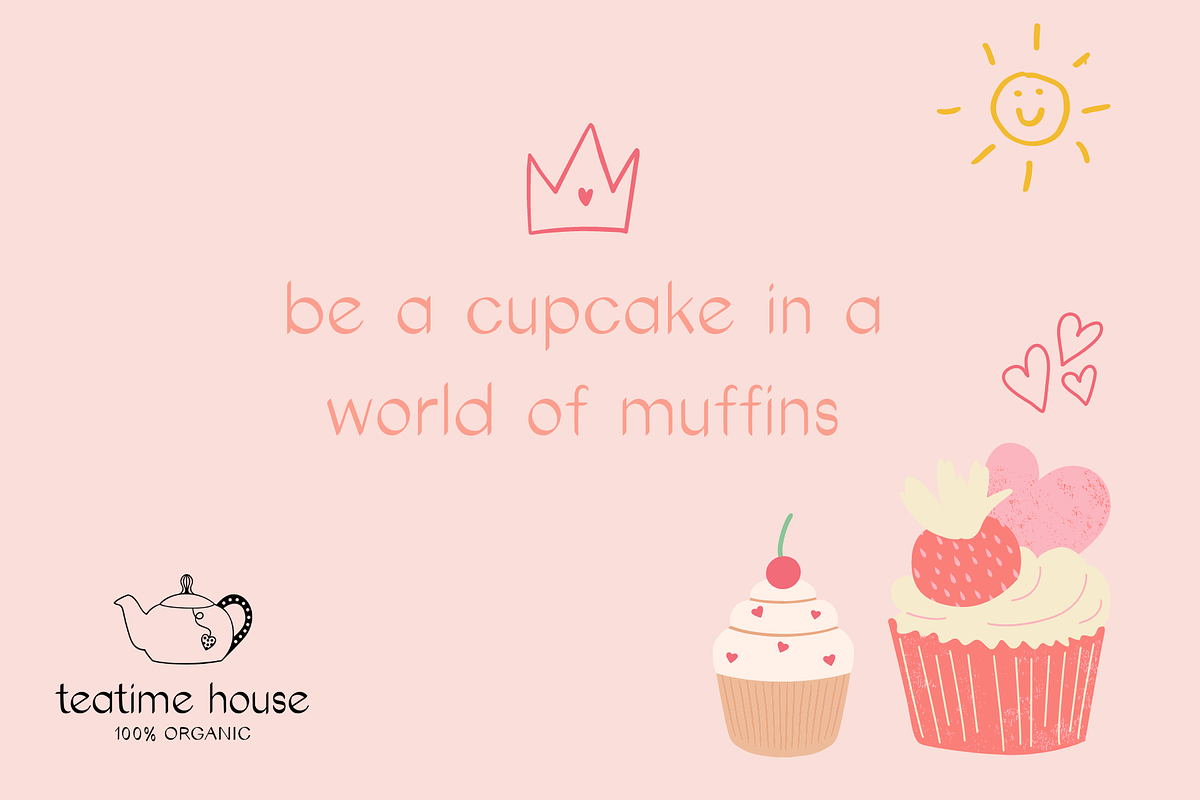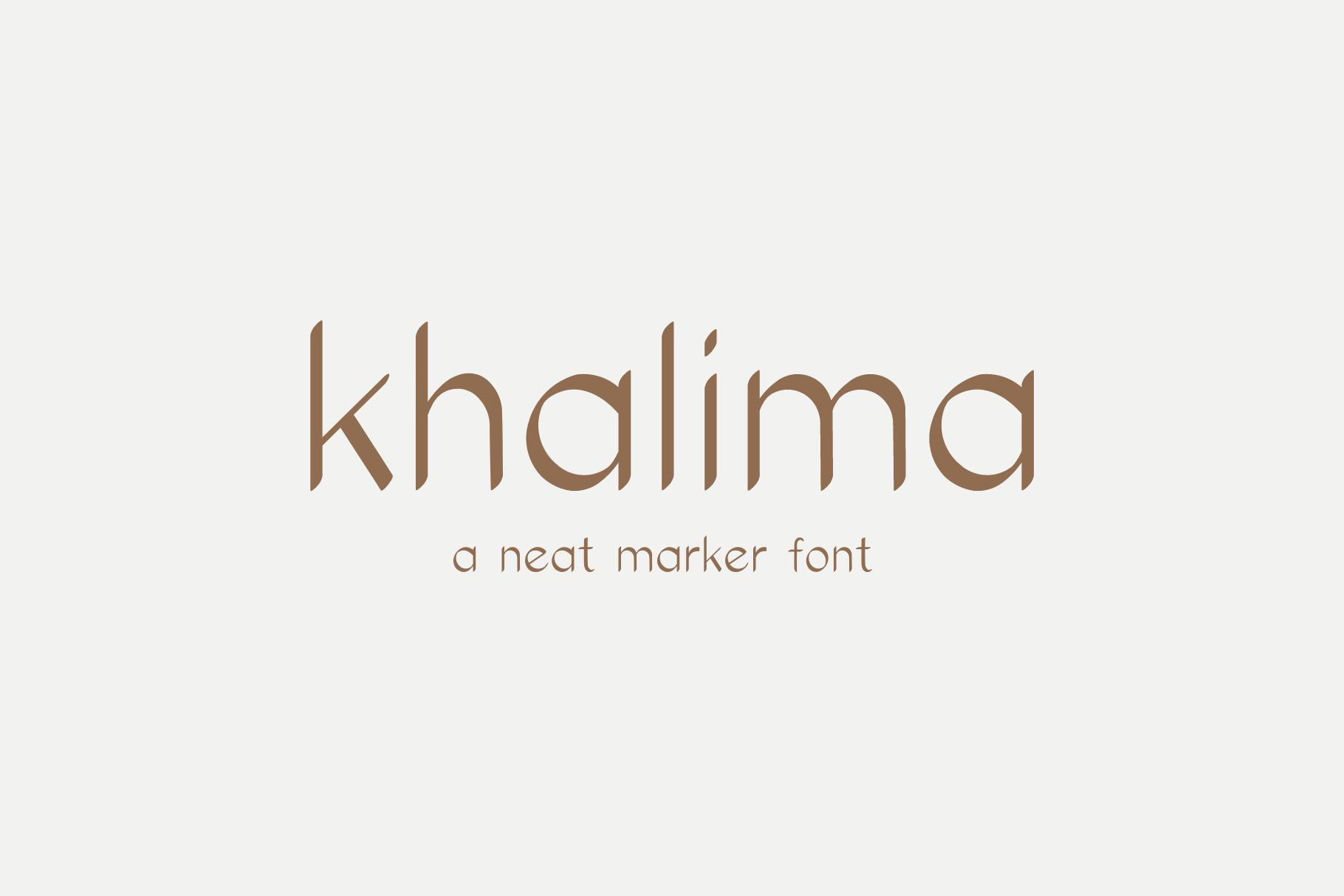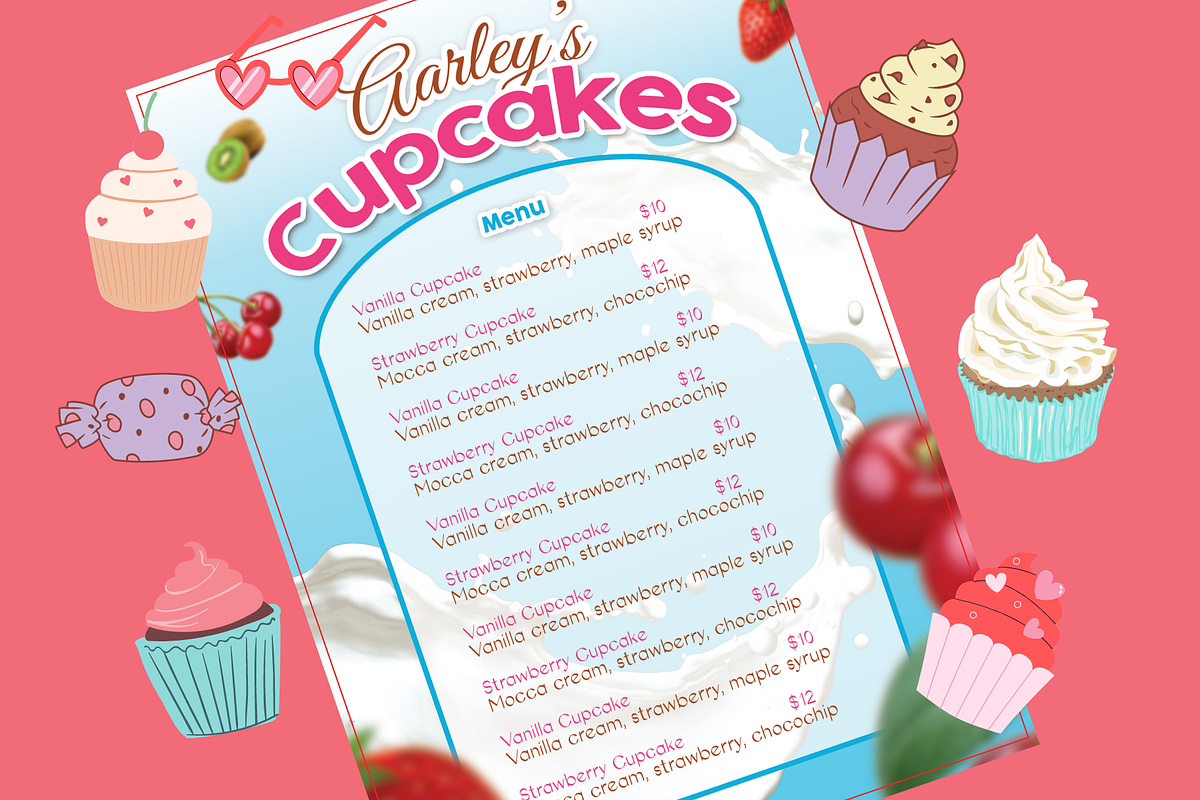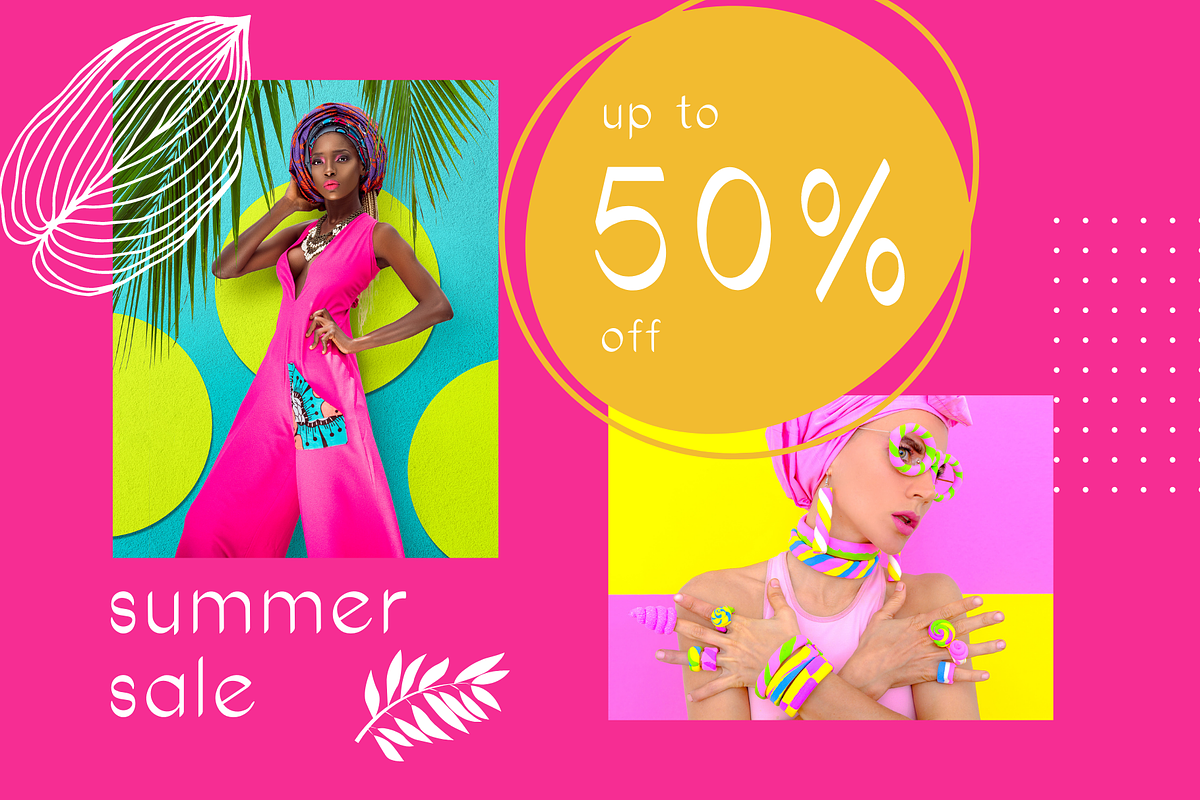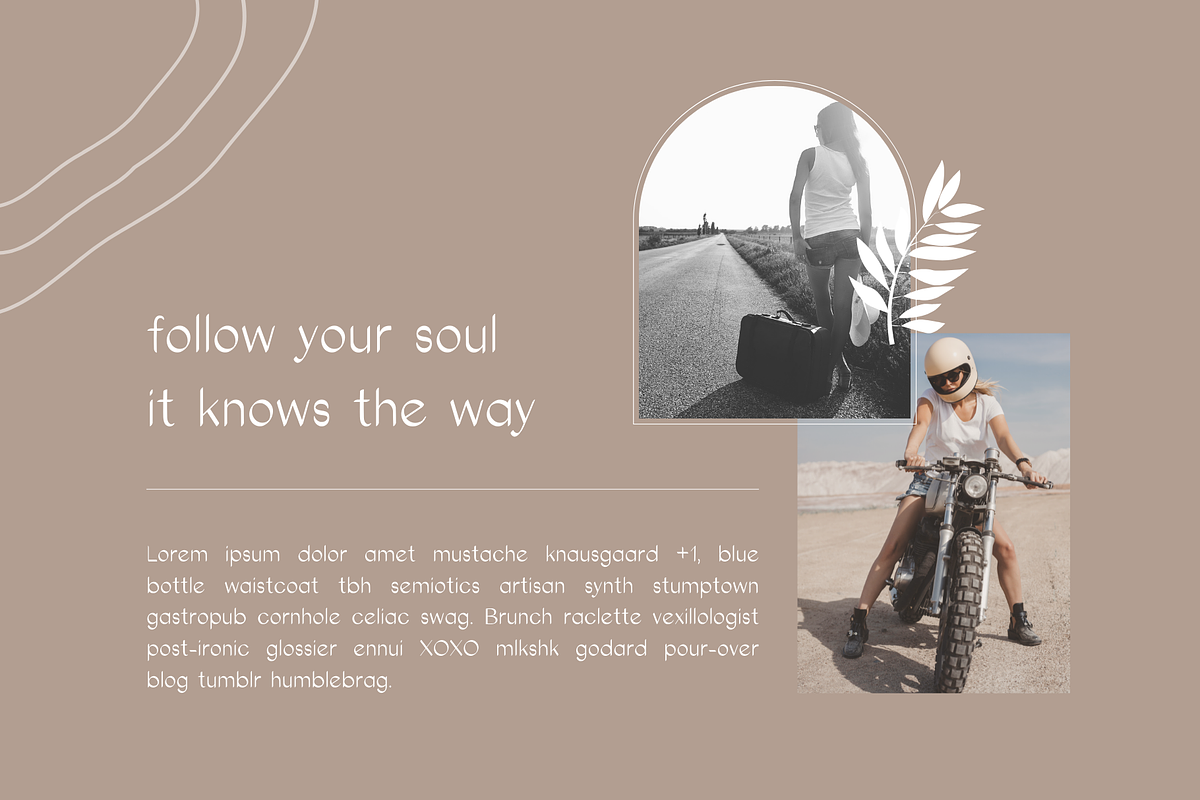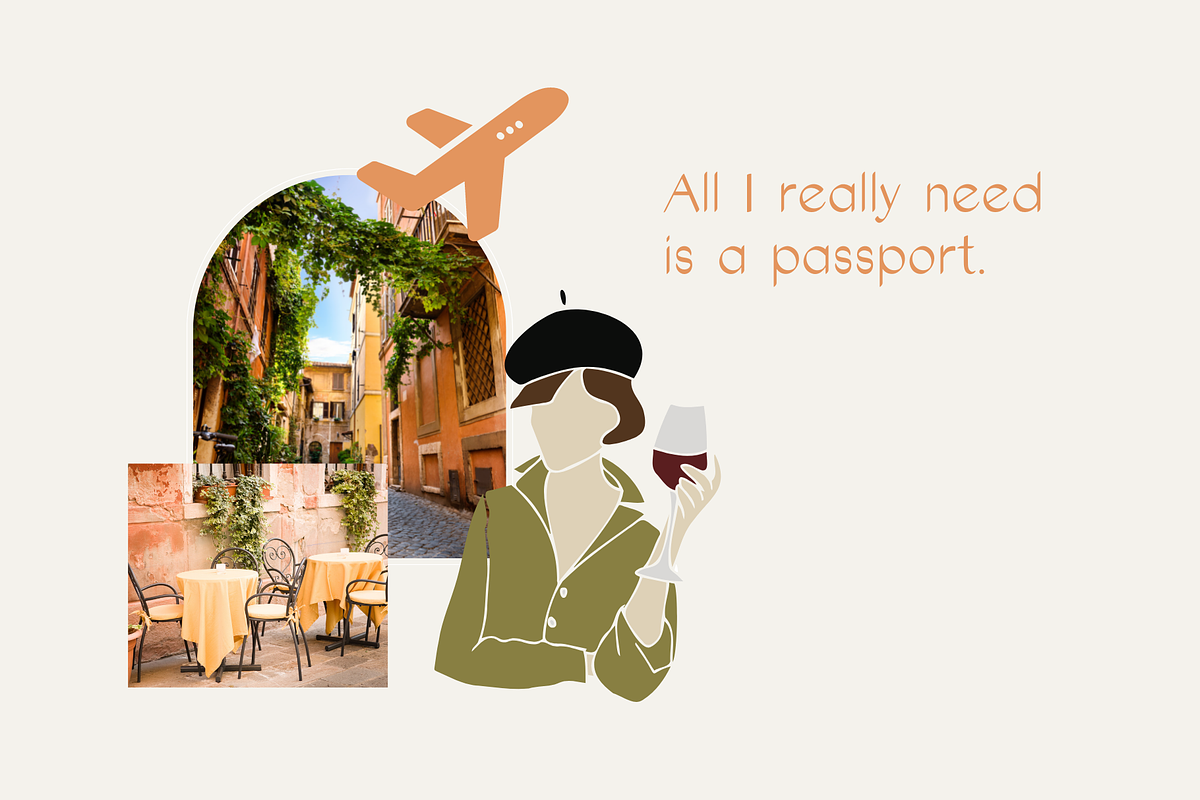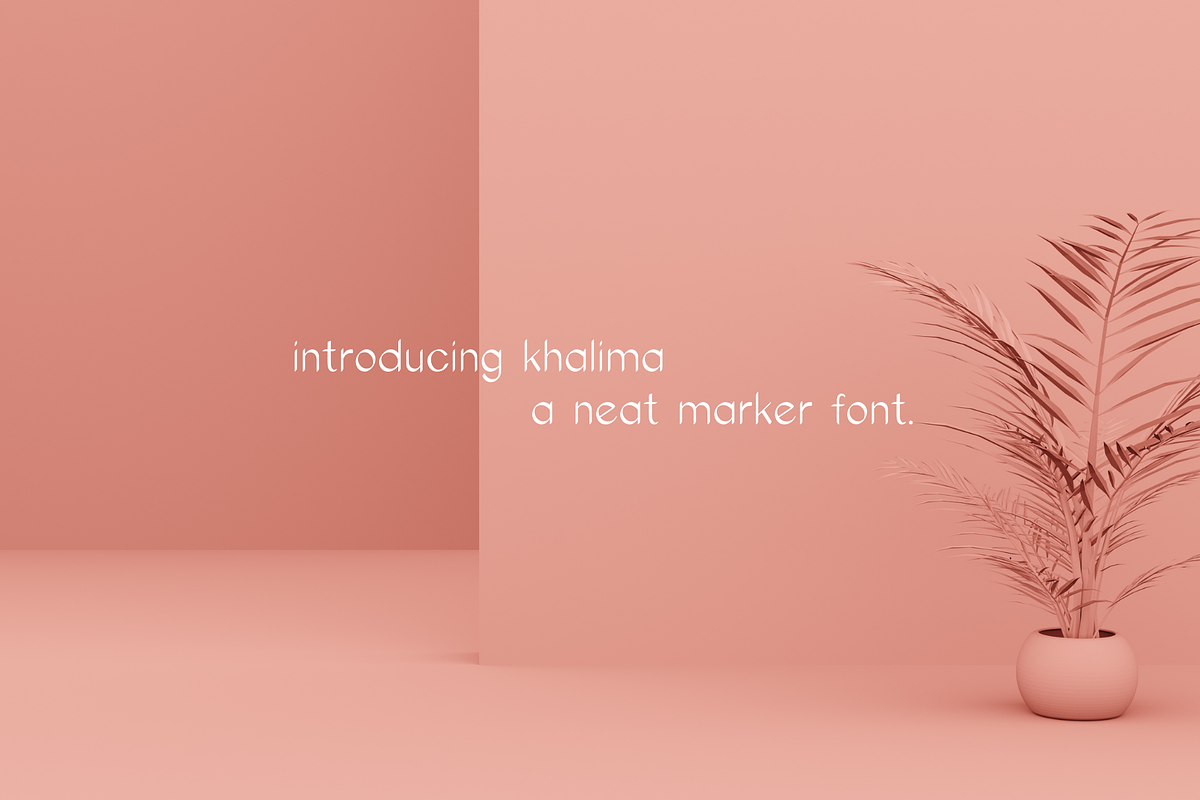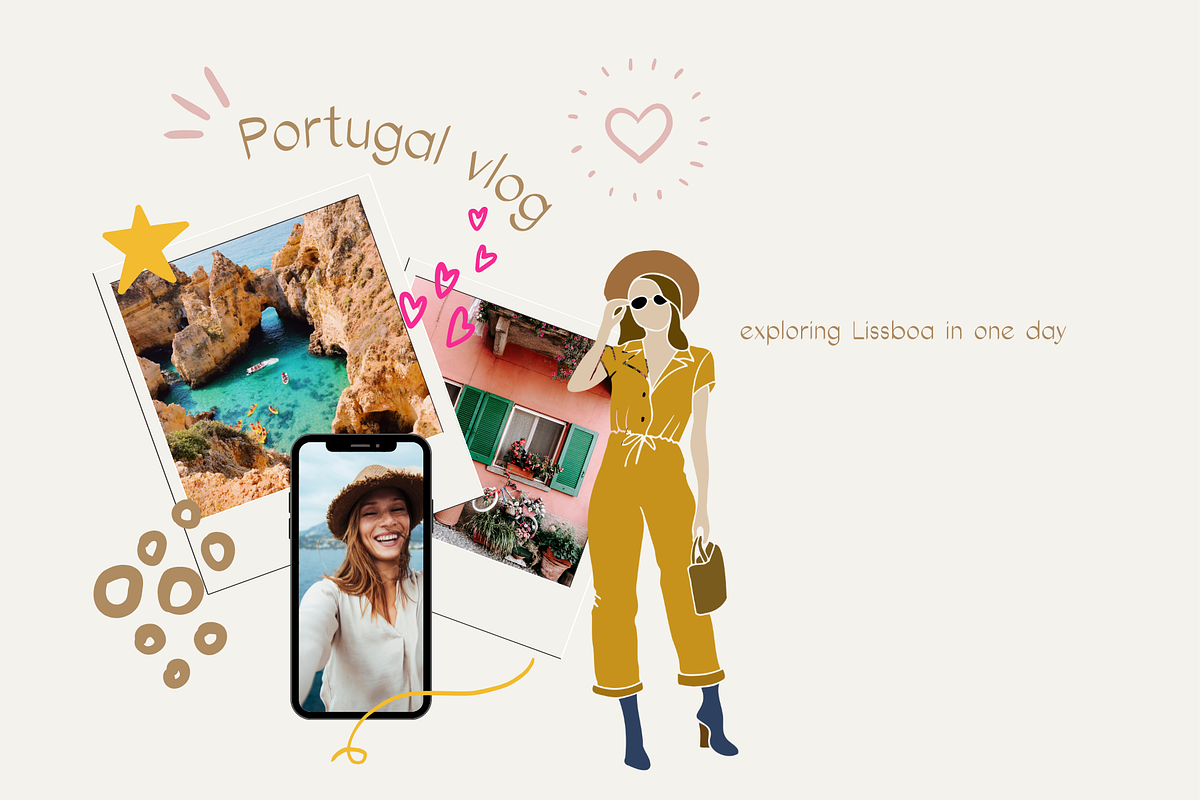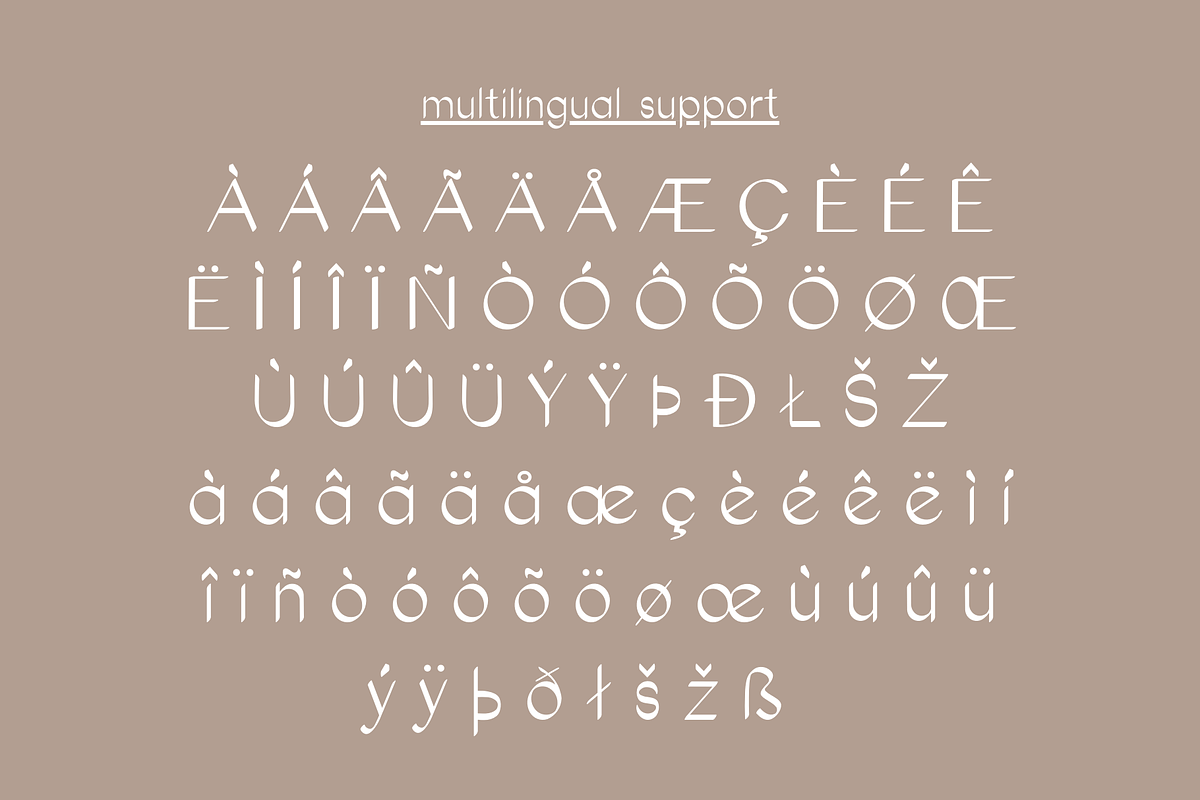
Khalima Neat Marker Font
Khalima is a neat marker, handwritten font. Suitable for journaling, digital notes, scrapbooking, invitations, branding, write on blogs, instagram, cards, social media, stickers, blog posts, and much more! You will get: Uppercase and Lowercase Characters, Symbols and Punctuations. This digital instant download includes: OTF, TTF & WOFF